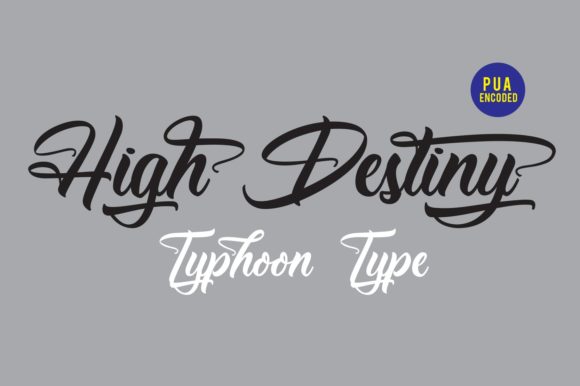
HomeScript FontsHigh Destiny Font Script Fonts High Destiny Font FacebookXPinterestWhatsApp About High Destiny Font High Destiny is a super elegant, high quality font that is packed with stunning swashes. DOWNLOAD ON CREATIVE FABRICAThis font is sold and delivered by Creative Fabrica. Font Canyon may earn a commission if you buy through this link. People also explored Zenittash Font Blue Berry Font Easter Pajamas Mock Up Maulydia Trust Font Wedding Font Flowery Font Agriculture Font Halloween Skull Font 265 0 TagsHigh Destiny Font Previous articleMinkem FontNext articleBronice Font LEAVE A REPLY Cancel reply Comment: Please enter your comment! Name:* Please enter your name here Email:* You have entered an incorrect email address! Please enter your email address here Website: Save my name, email, and website in this browser for the next time I comment. Personal Use Free Coconote Personal Use Free Read more about this font Eits Personal Use Free Read more about this font Coolvetica Font Personal Use Free Read more about this font Fifteenth Century Personal Use Free Read more about this font BLOG Exploring Font Trends Shaping Communication in the Digital Era Fonts, like all design elements, are subject to trends. They play a crucial role in communicating a brand's personality,... Where to Buy American Fonts Online in 2024 Free vs Paid Fonts: Why Investing in Premium Fonts Is Worth It Modern Sans-Serif Fonts That Brands Love in 2025